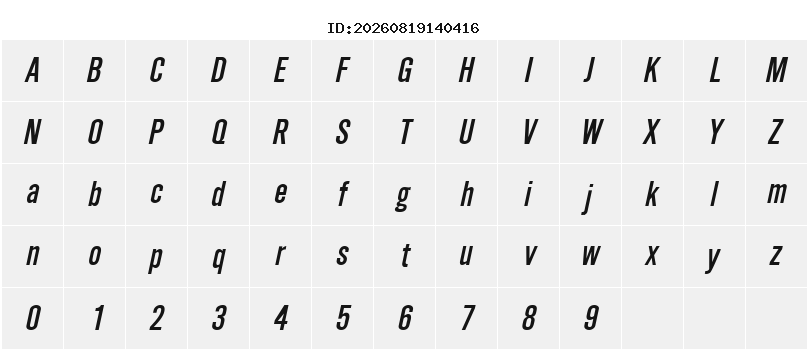
SimpleType Preview
• Font Name: SimpleType
• Full Font Name: SimpleType Italic
About SimpleType.ttf
SimpleType.ttf is a modern, elegant sans-serif font designed for ultimate readability and visual harmony. Perfect for branding, headlines, web design, and print materials.